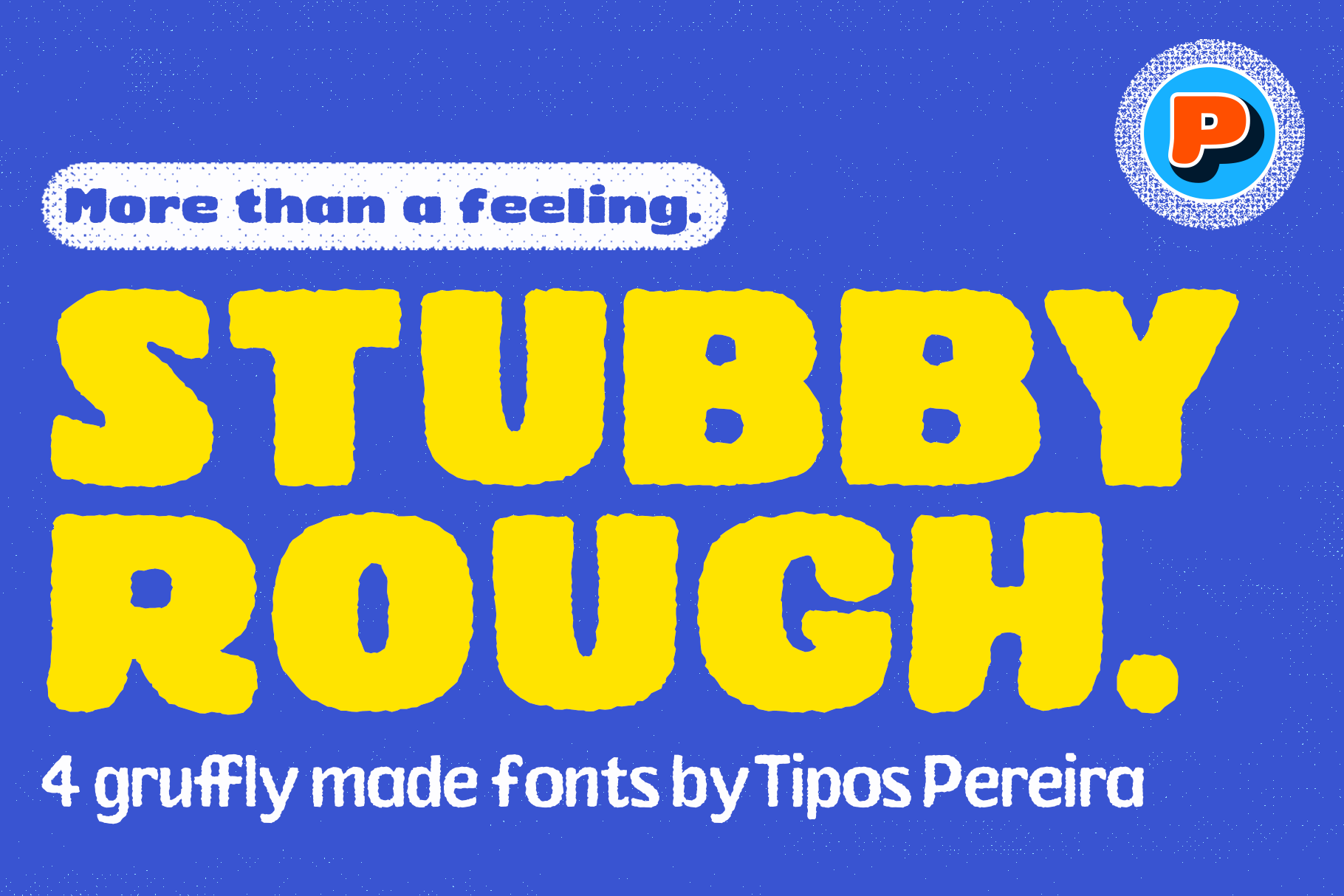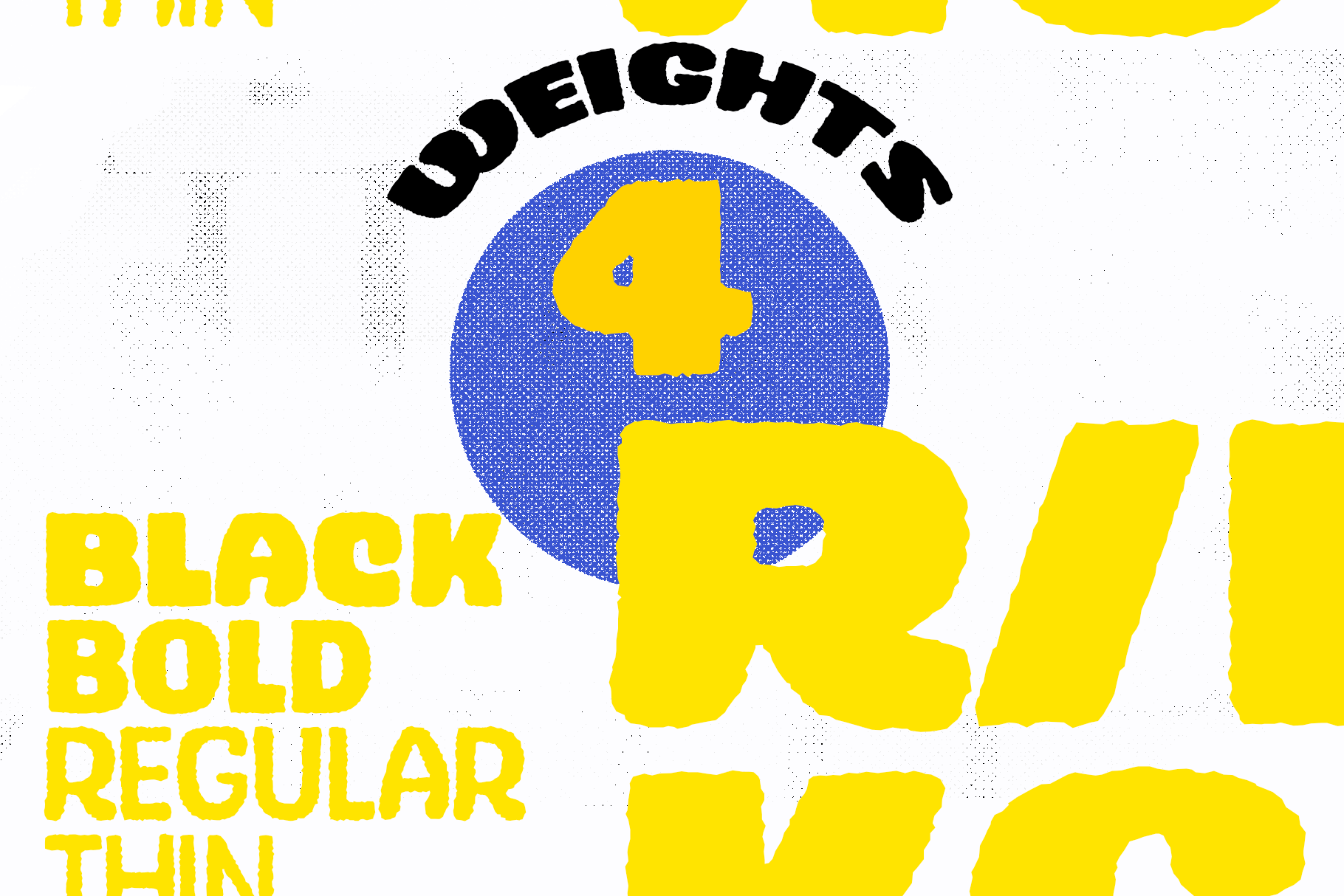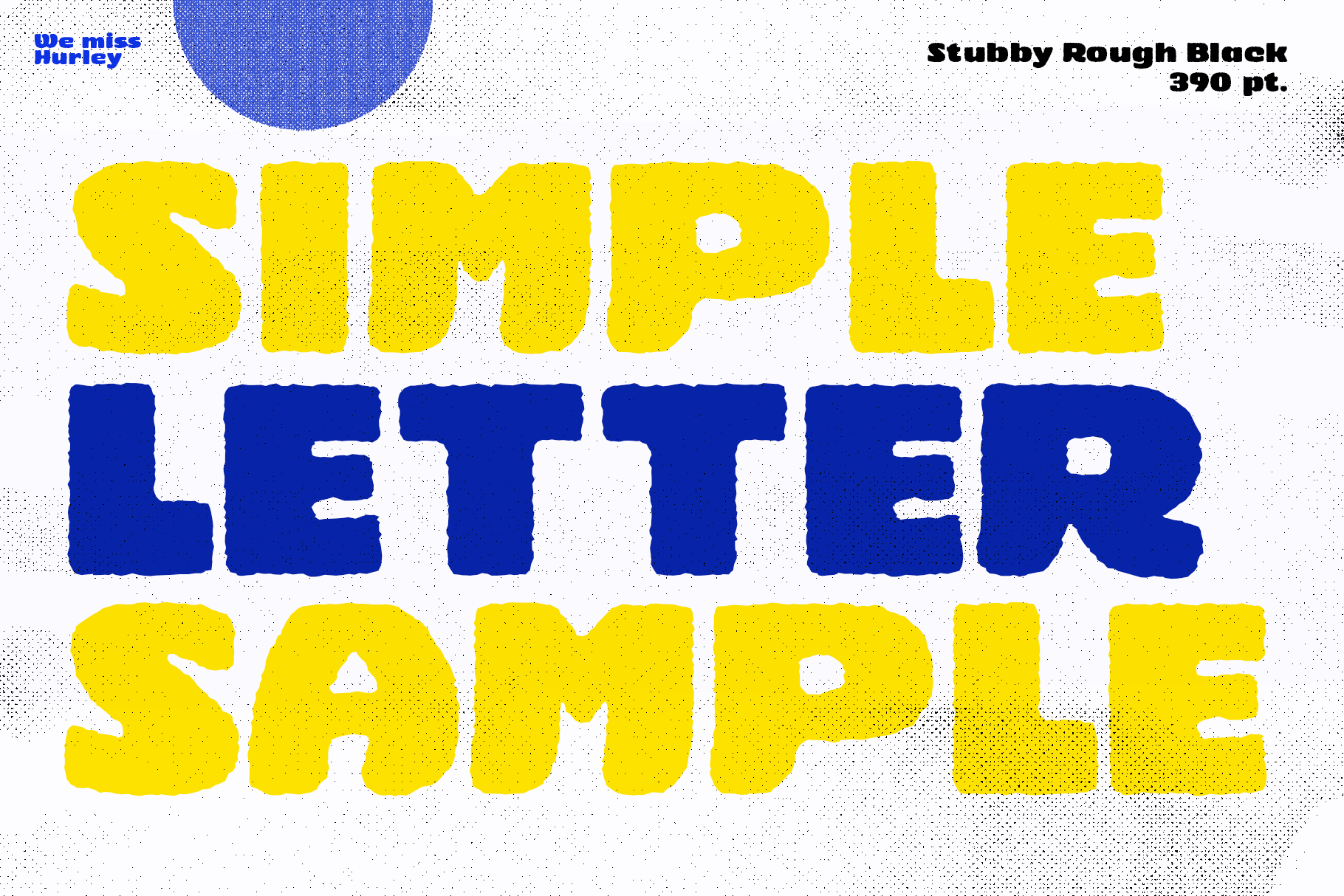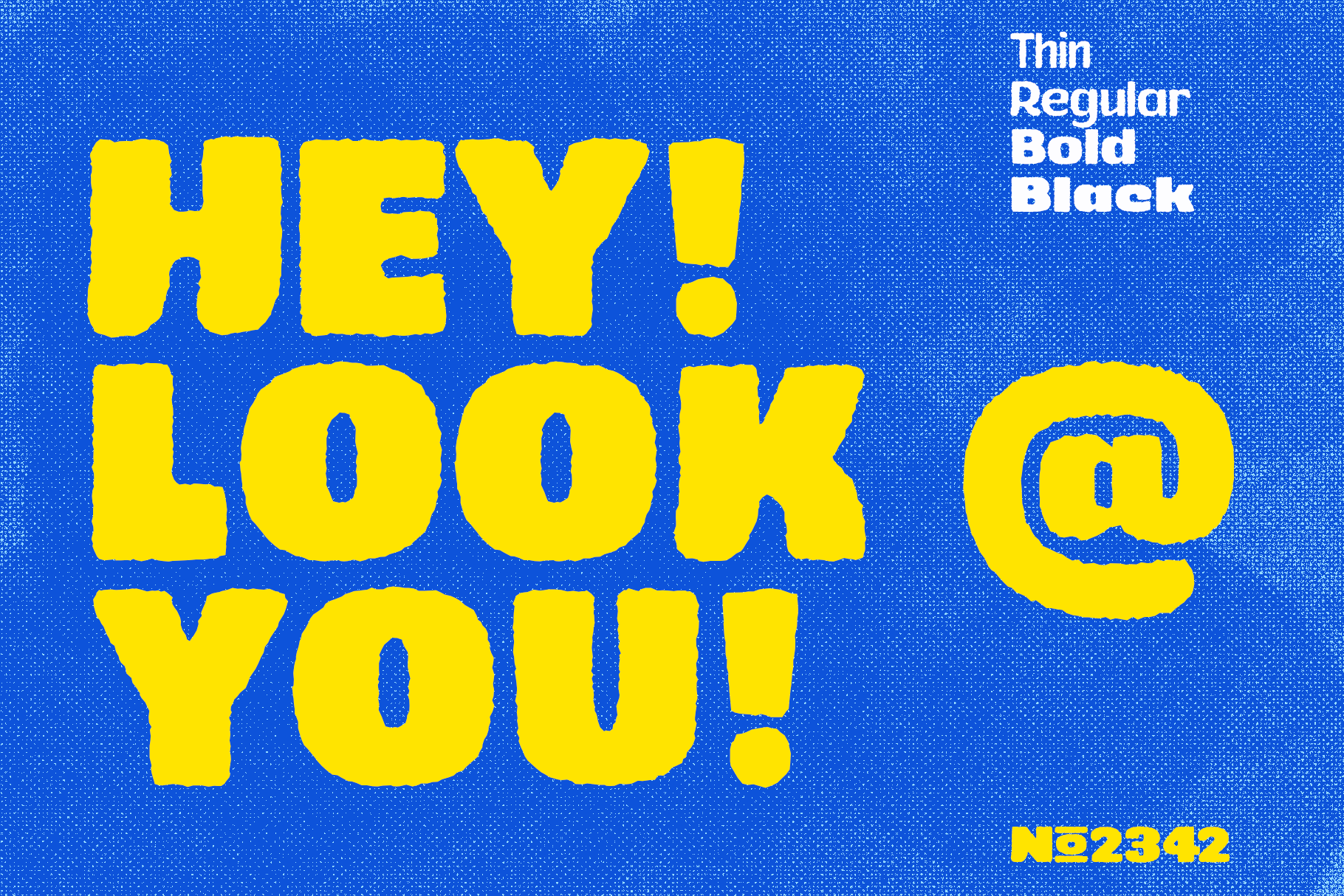
Stubby Rough is a display type family with 4 styles, inspired by the vernacular landscape. It was made for titles, headlines and also packages, posters and everything that provide space for a rude, fat and widish type. Nonetheless it can be a type for text if you are looking for an informal shape, with eleven styles mixing from a narrowed thin to a sloppy ultrabold. Stubby has a tight spacing looking to fit in squeeze places, trying to simulate some real spirit of the botecos from Brazil, always serving very cold beer in stubby brown bottles. If you liked of Stubby Rough, take a look also at the original version :) https://creativemarket.com/TiposPereira/3271500-Stubby-Typeface OTF, TTF and WOFF font files included. | Stubby Rough Fonts | Tipos Pereira